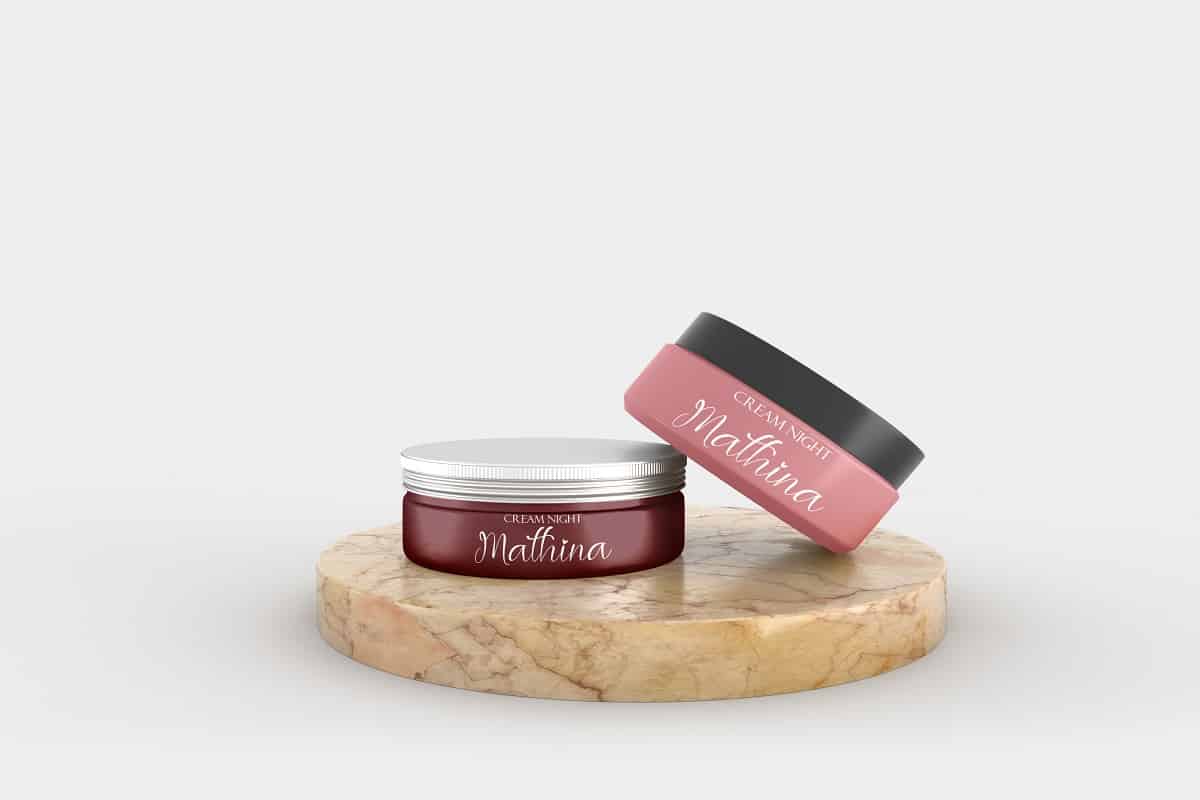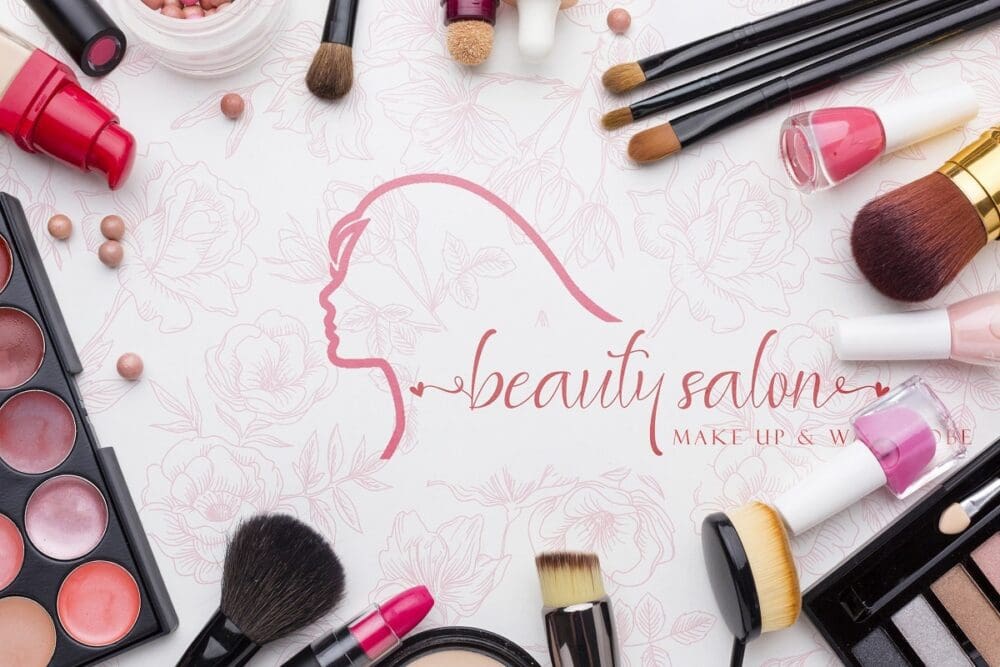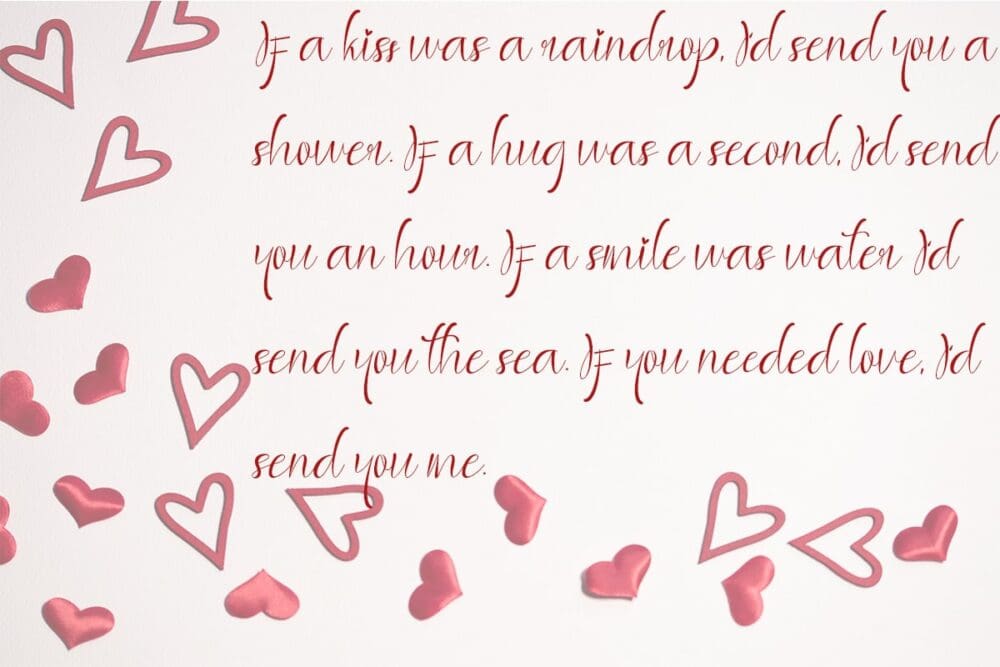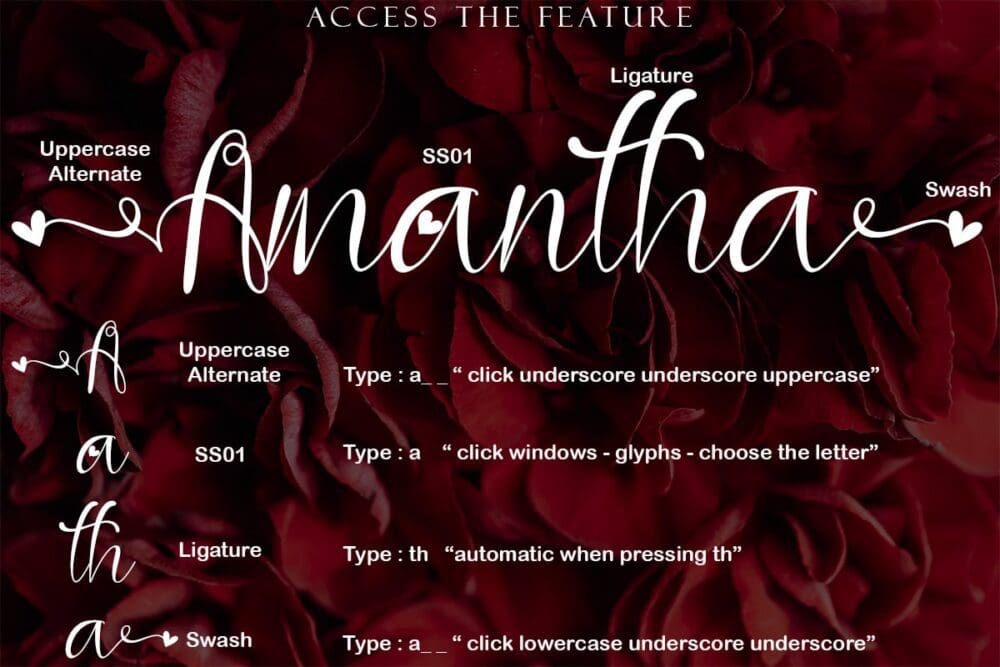
Amantha Font
Amantha is a romantic and dreamy handwritten font. It is the ideal choice for making various designs such as logos, wedding invitations, headings, t-shirts, letterhead, signage, labels, news, posters, badges and so much more.